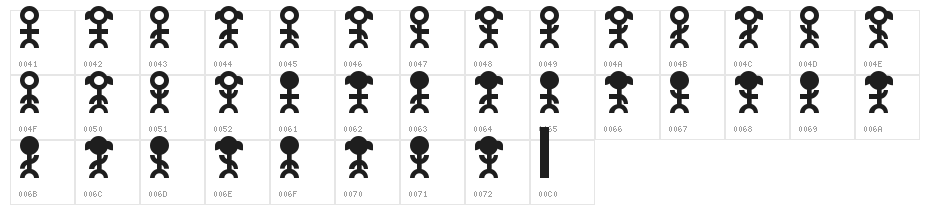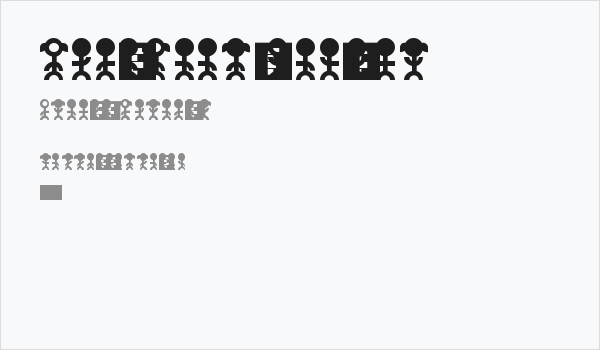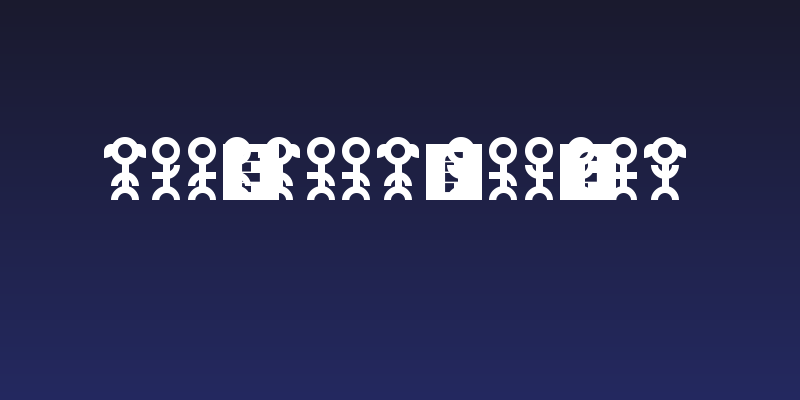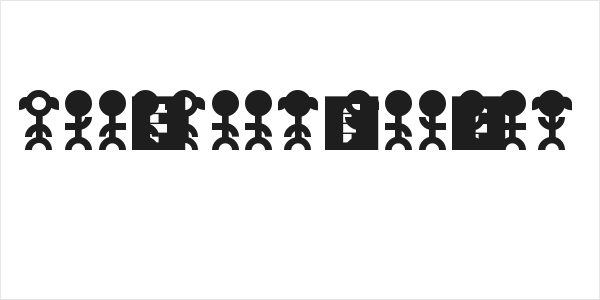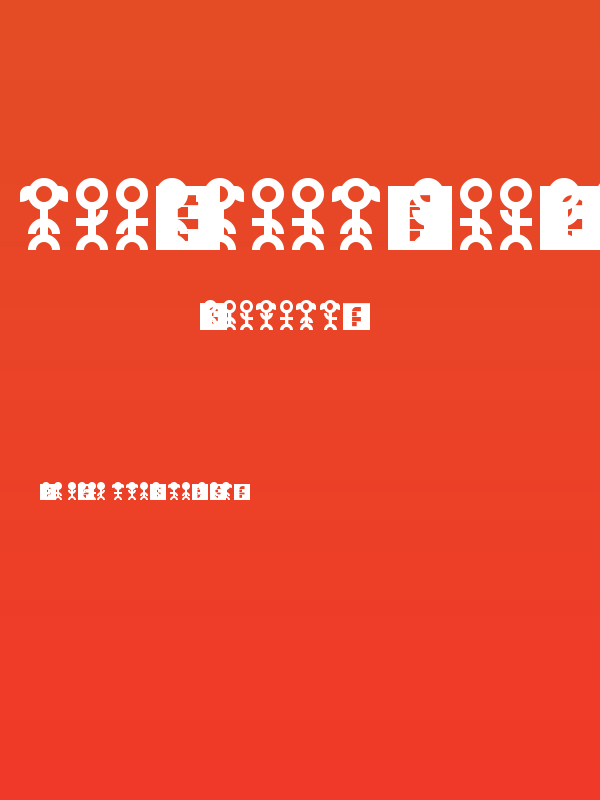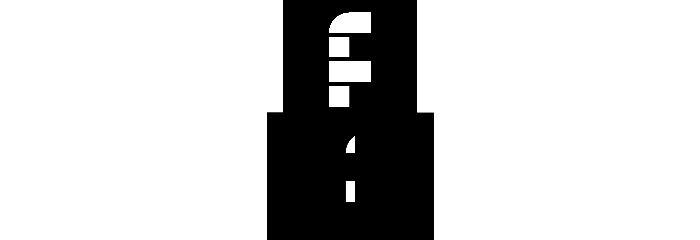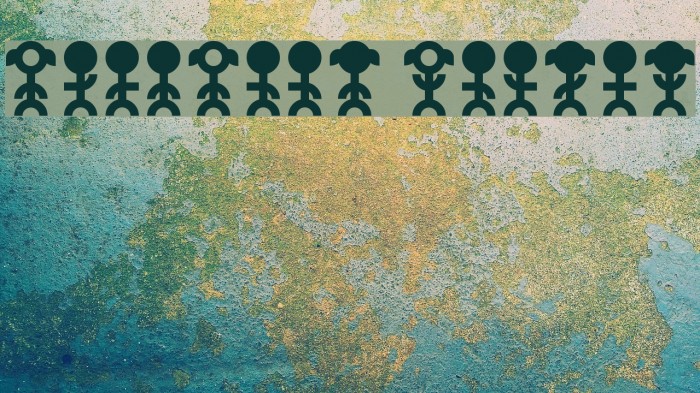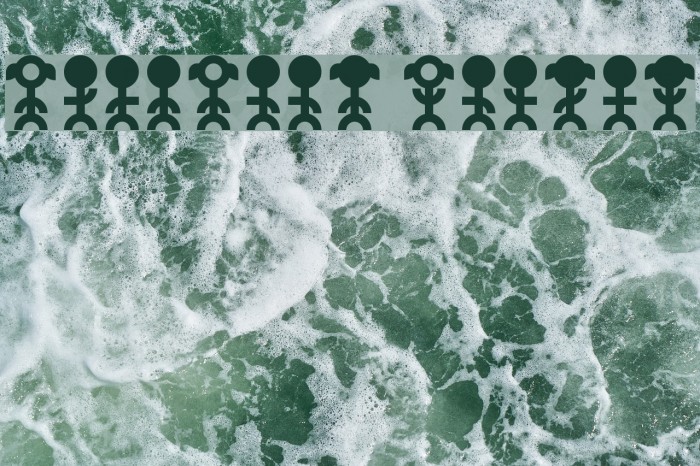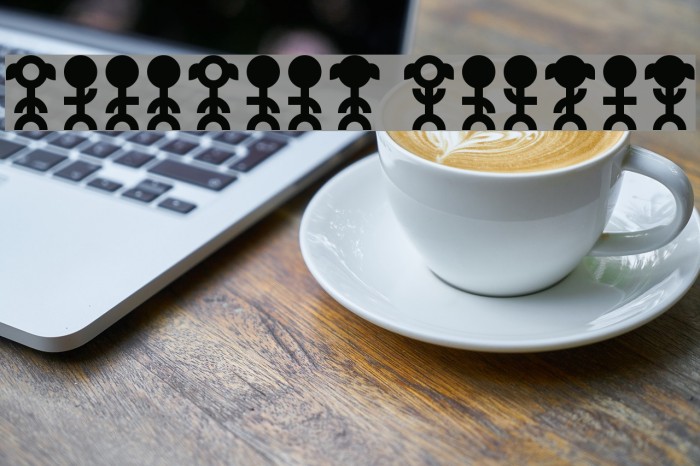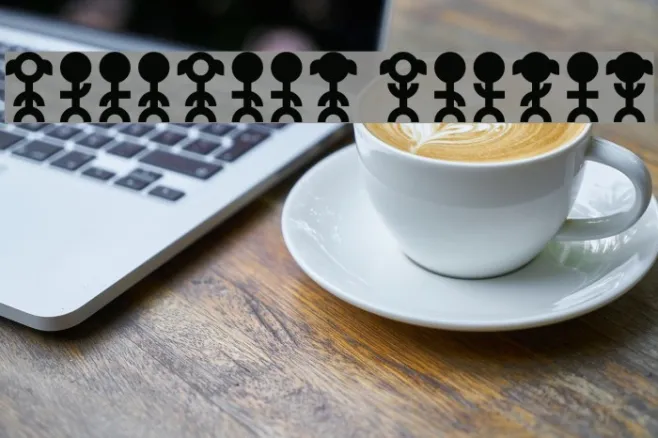
PictoPeeps Regular Font
PictoPeeps Regular Description
This font is a playful and whimsical collection of pictographic characters, each resembling a stylized figure or object. The characters are bold and simplistic, with a uniform thickness that gives them a cartoonish appearance. The design is highly decorative, making it ideal for creative projects that require a fun and lighthearted touch. The figures are consistent in style, with rounded edges and a balanced composition that makes them easily recognizable. This font is not suitable for traditional text but excels in adding a unique visual element to designs.
| Overall Style | Whimsical, Playful, Decorative |
| Use Case | Logos, Posters, Creative Projects |
| Proposed Projects | Ideal for children's books, playful branding, educational materials, and creative posters. |